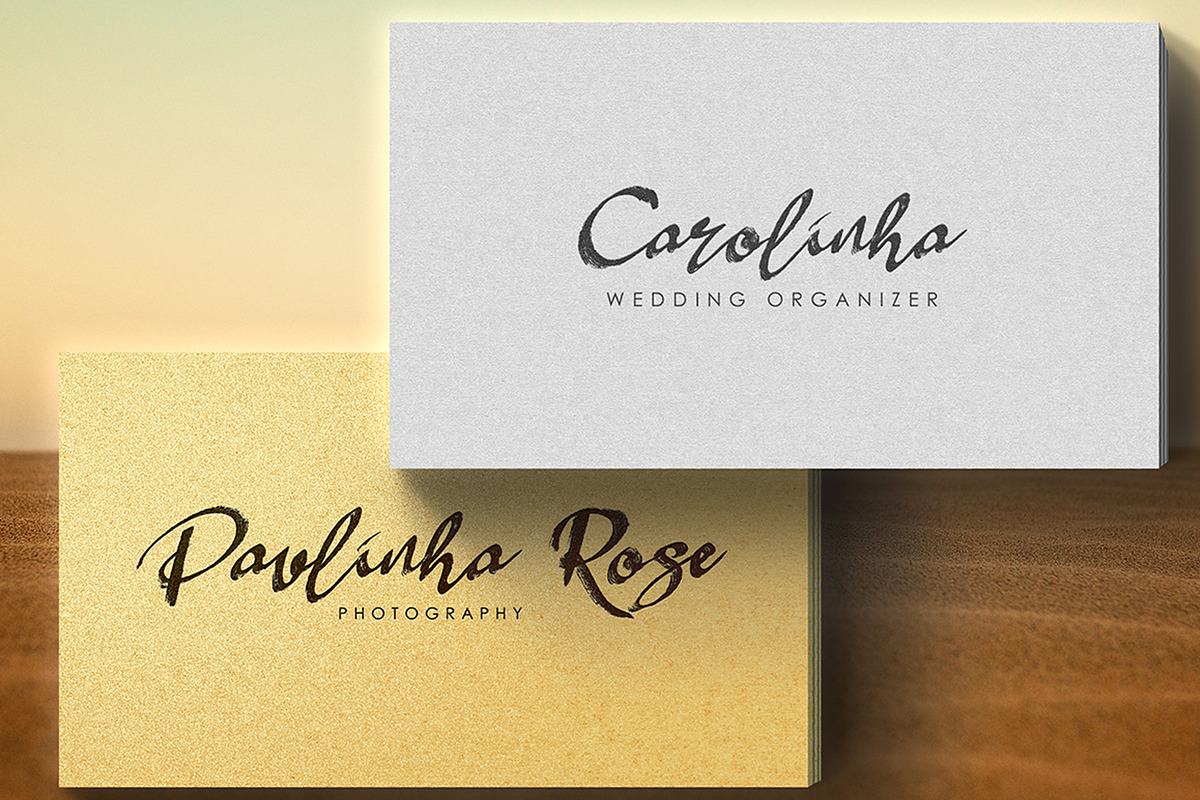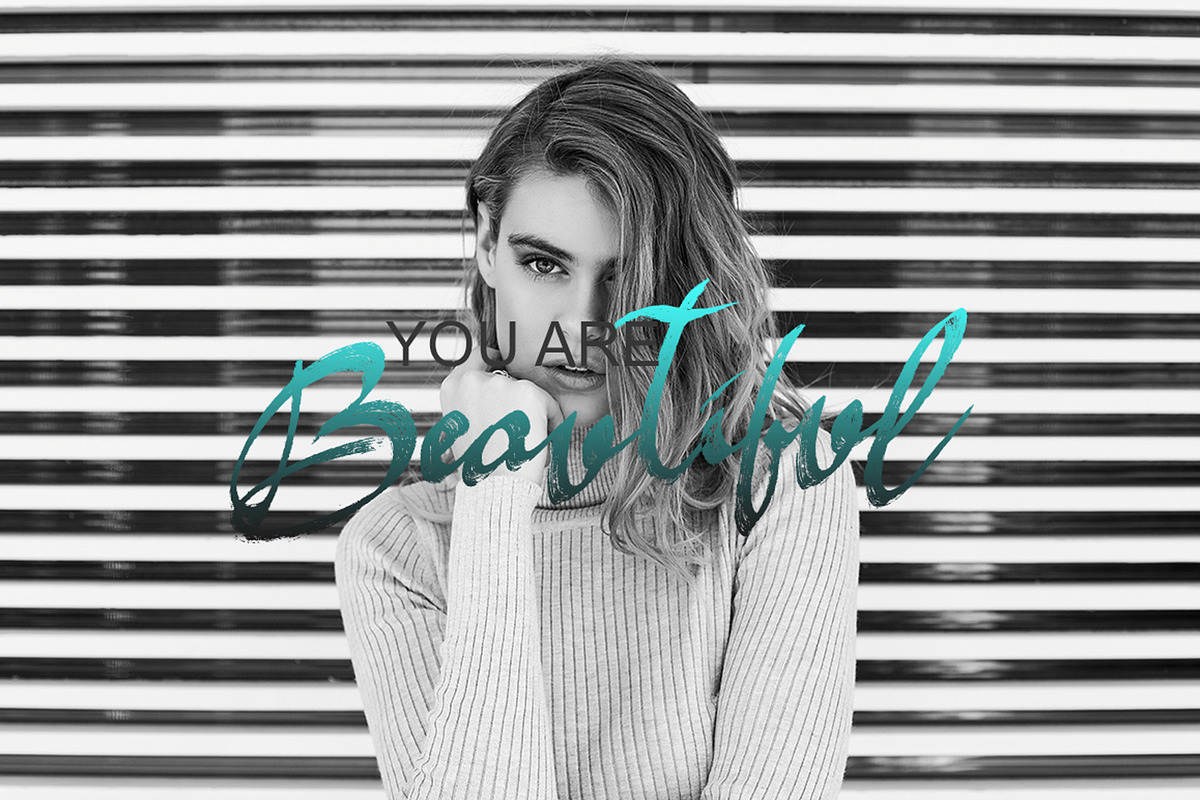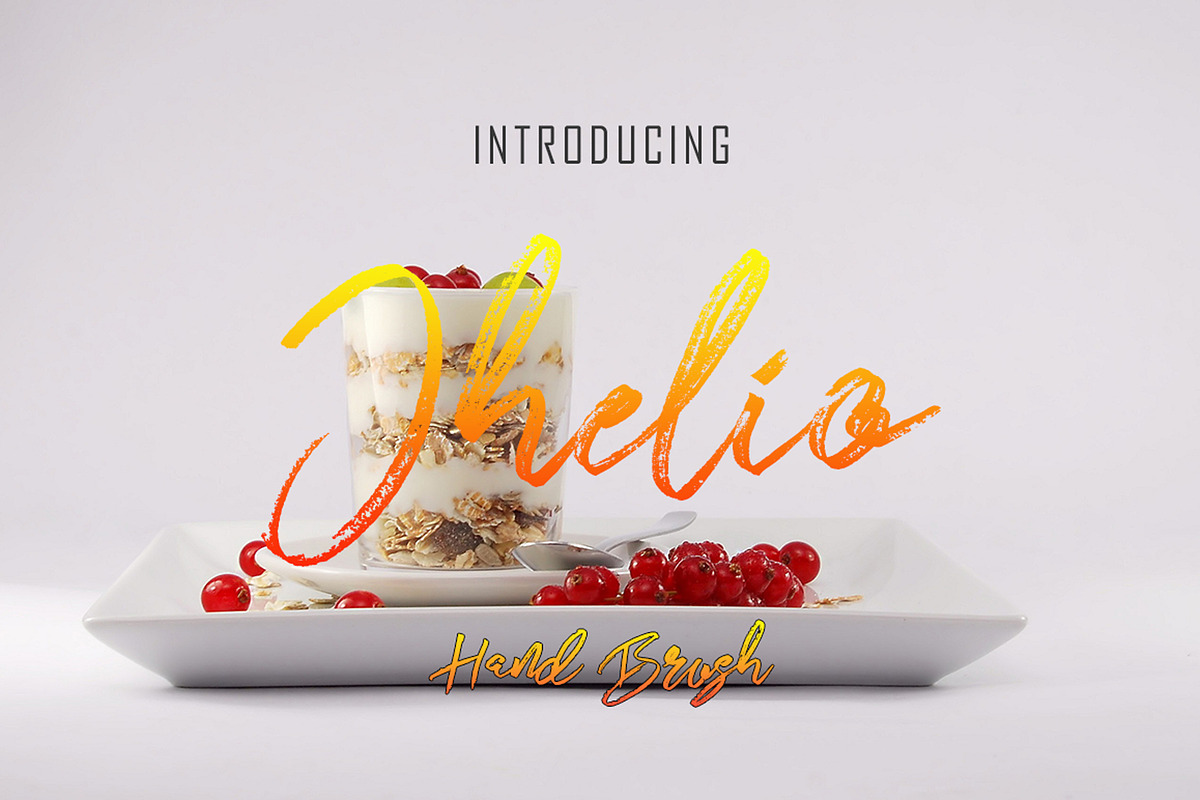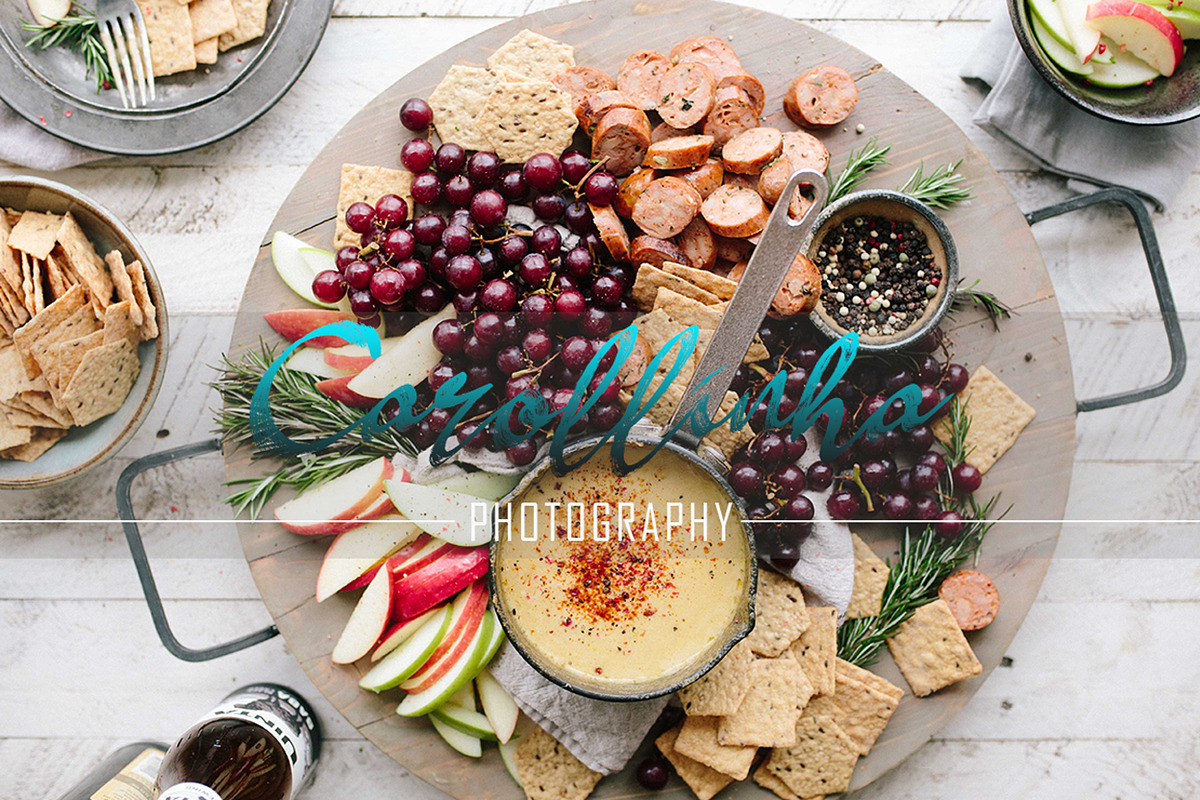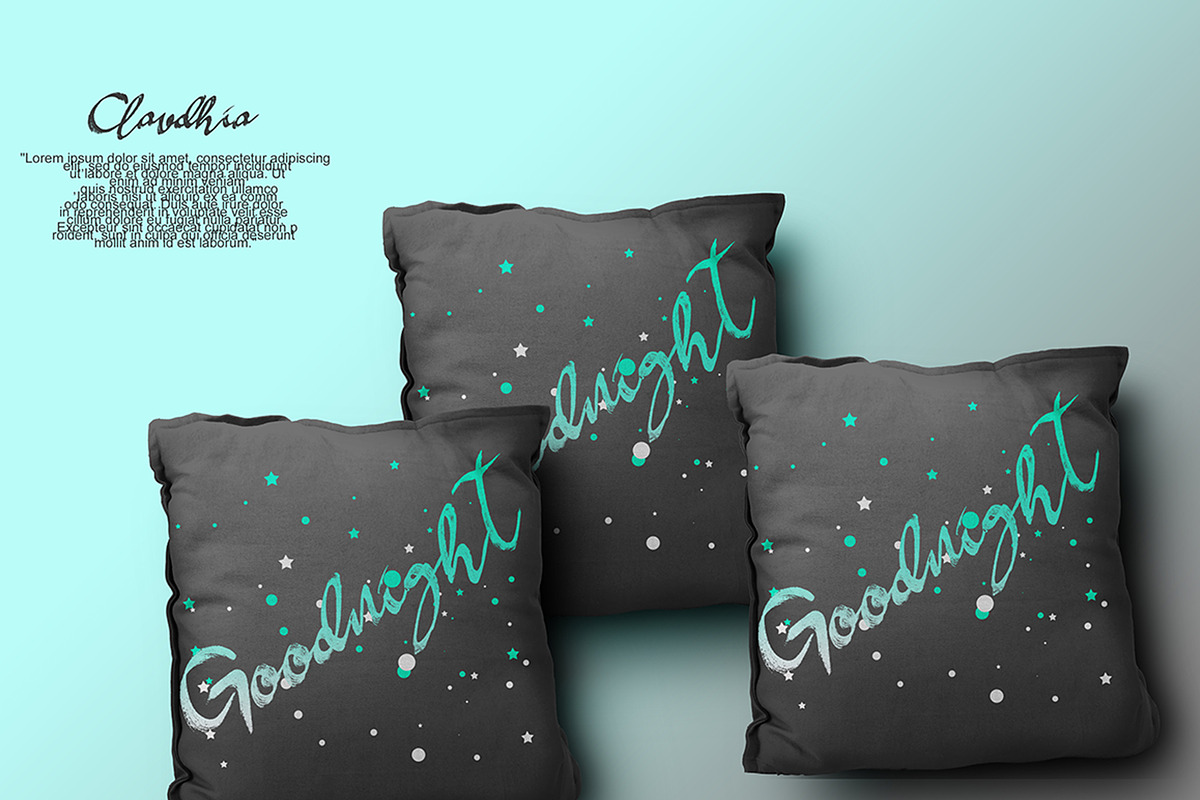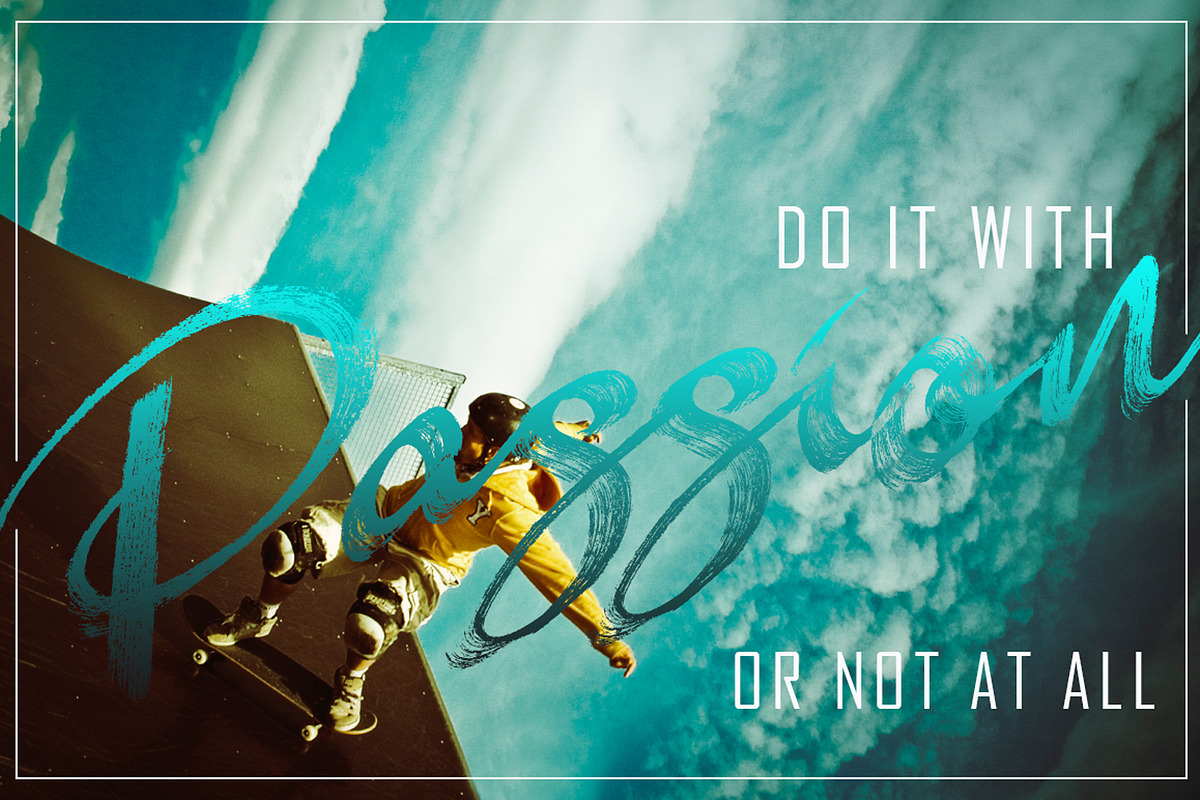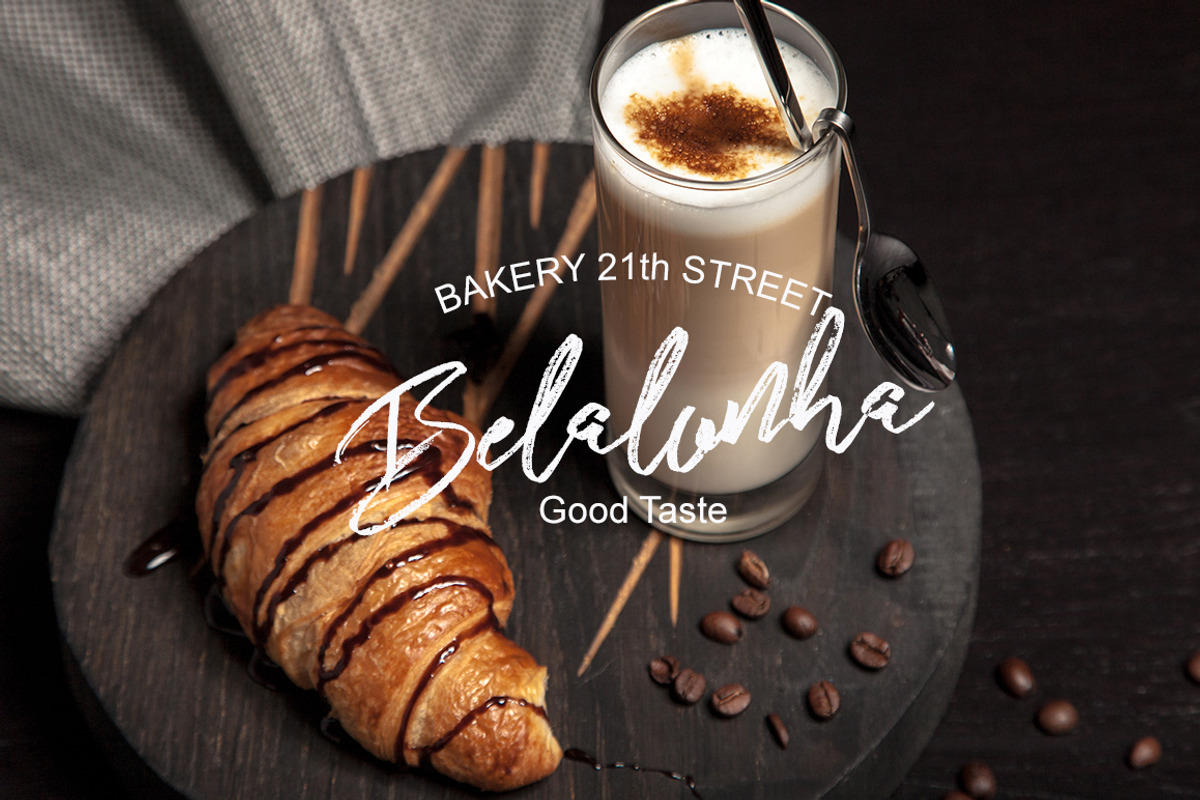
Claudhia & Jhelio Font Duo 50% Off by MissinkLab Studio is a font selected for branding, posters, packaging, typography.
Why Claudhia & Jhelio Font Duo 50% Off is worth a look
Claudhia & Jhelio Font Duo 50% Off by MissinkLab Studio fits naturally into Branding, posters, packaging, typography.